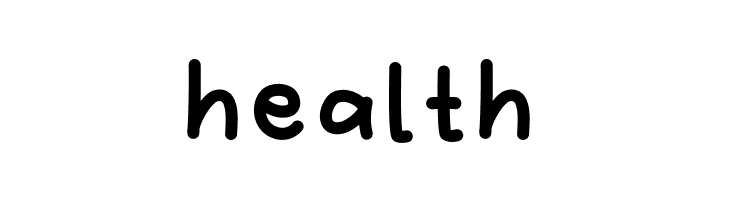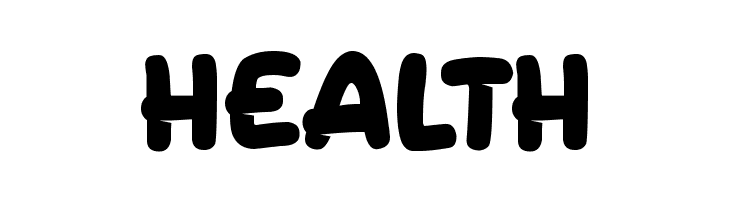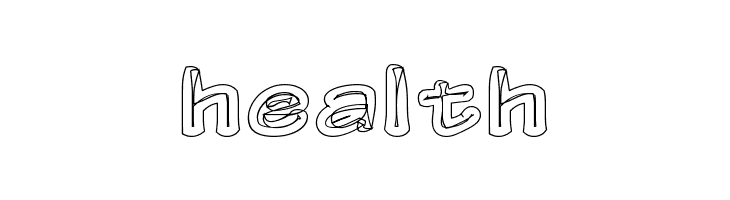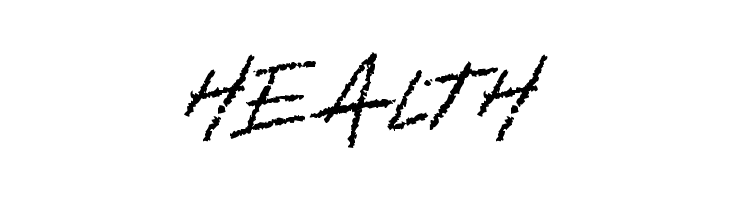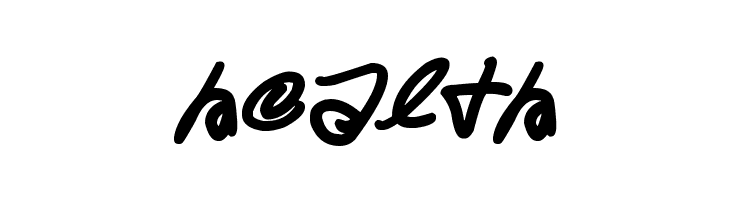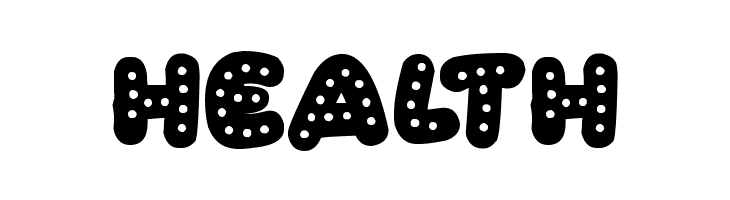
A playful, handwritten font with rounded edges and a casual style.
A dynamic, hand-drawn font with a rough, textured style.
A jagged, spooky font with a bold, distressed appearance.
A bold, expressive handwritten font with a graffiti-like style.
A bold, Halloween-themed decorative font with ghostly and pumpkin-like characters.
A dynamic and elegant script font with fluid, cursive strokes.
An elegant and decorative script font with intricate swashes.
A playful, casual handwritten font with smooth, rounded edges and consistent strokes.
A playful, cookie-inspired font with bold, rounded characters and decorative cutouts.